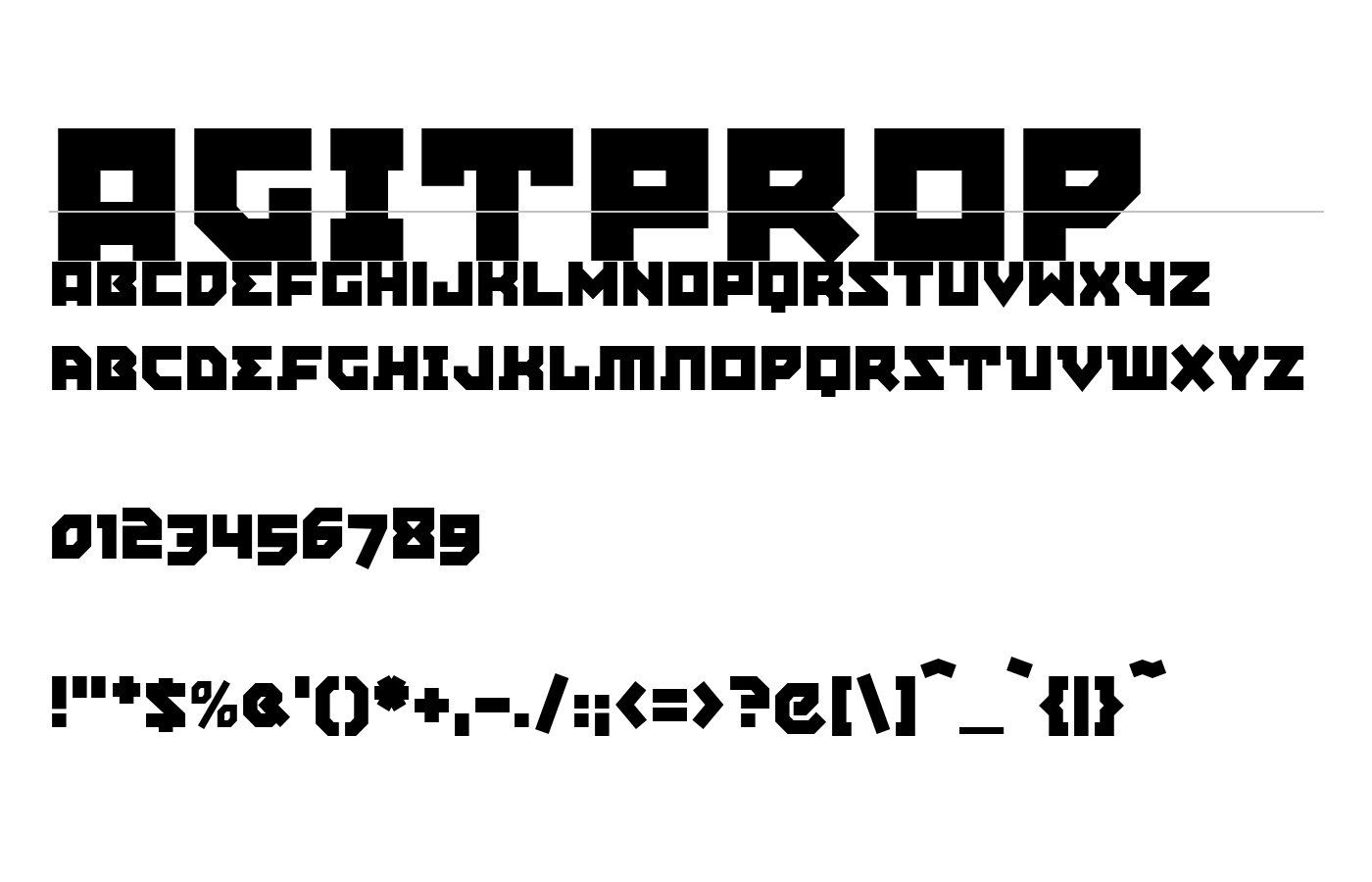
AgitProp is a bold, geometric sans serif font with a strong, blocky presence and sharp angular cuts that convey a sense of power and impact. Its condensed width and high x-height make it ideal for attention-grabbing headlines and display use, especially in contexts requiring a modern, industrial, or propaganda-inspired aesthetic. This font works great for posters, logos, and branding that demand a commanding and edgy visual voice.
AgitProp Font
About AgitProp Font